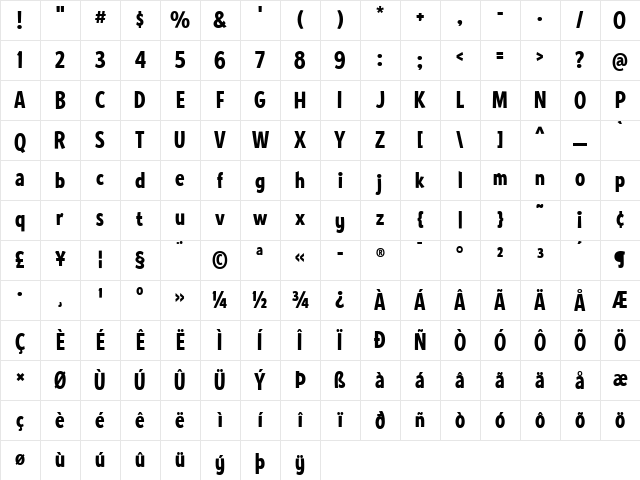
Ed Gothic
Style: Gothic
Designer: Ed Benguiat, Ken Barber
Design Context for Ed
Ed takes a clean, functional approach - its unadorned letterforms prioritise legibility and work reliably across screen and print environments.
Font Pairing: Works well alongside a characterful serif or display font that can carry the expressive load while Ed handles the functional copy.
Pro Tip: Use Ed for UI labels, navigation, and short-form body copy where clean legibility is the priority.